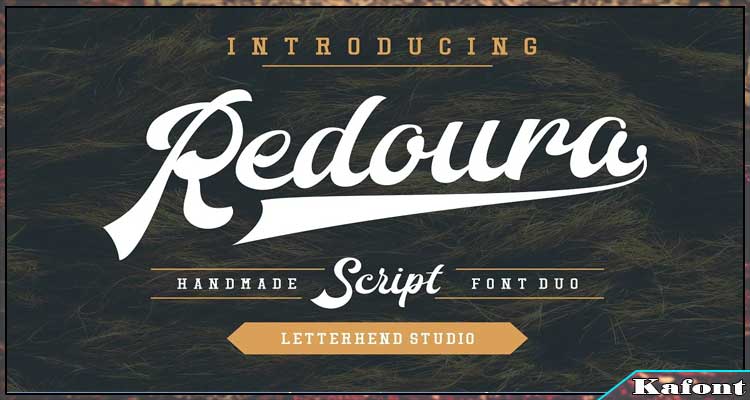
Redoura Handwritten Font Download has already released a premium typeface that is effective to perfect your designs. It’s only free for personal use at the moment.
Redoura Font Duo
It is a product that Letterhend designed. It promises to grant your works a high quality as you expect.
The current creation is inspired by the 70s font style and Script Sports one.
Redoura Font is great to finish logotype, wordmarks, particularly for sports theme logos. Download the existing option and kick off a good feel!
Redoura Font